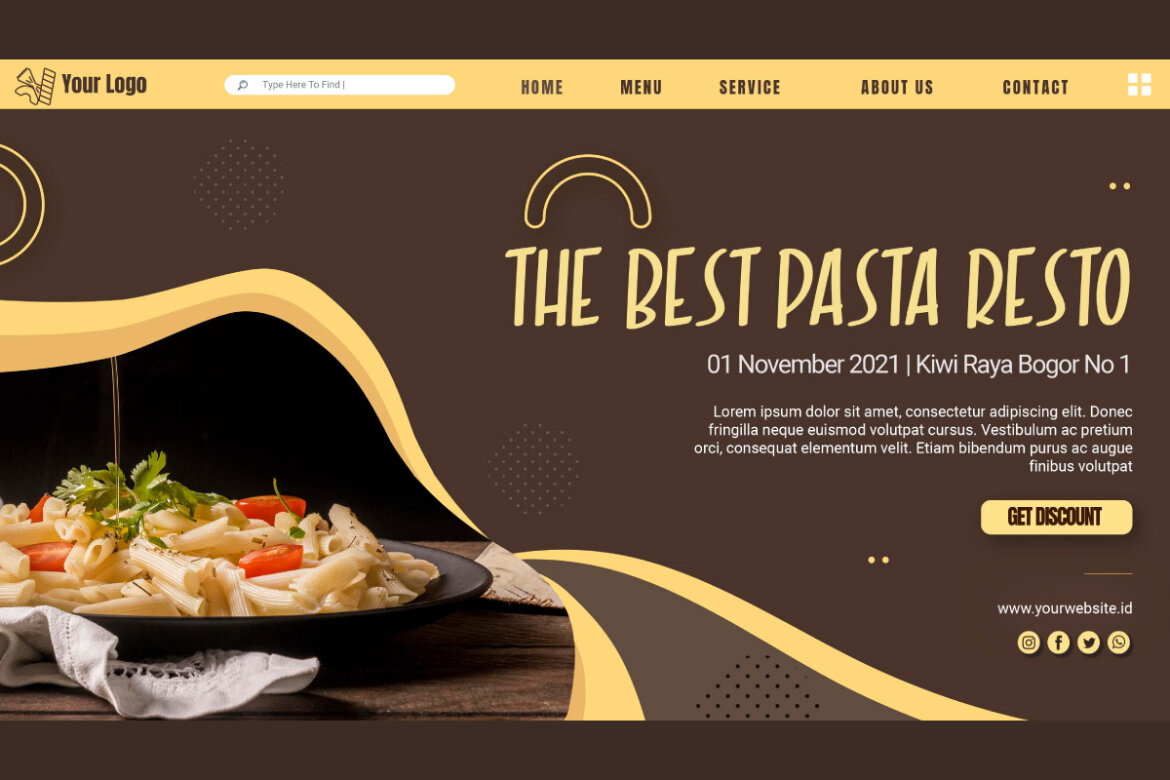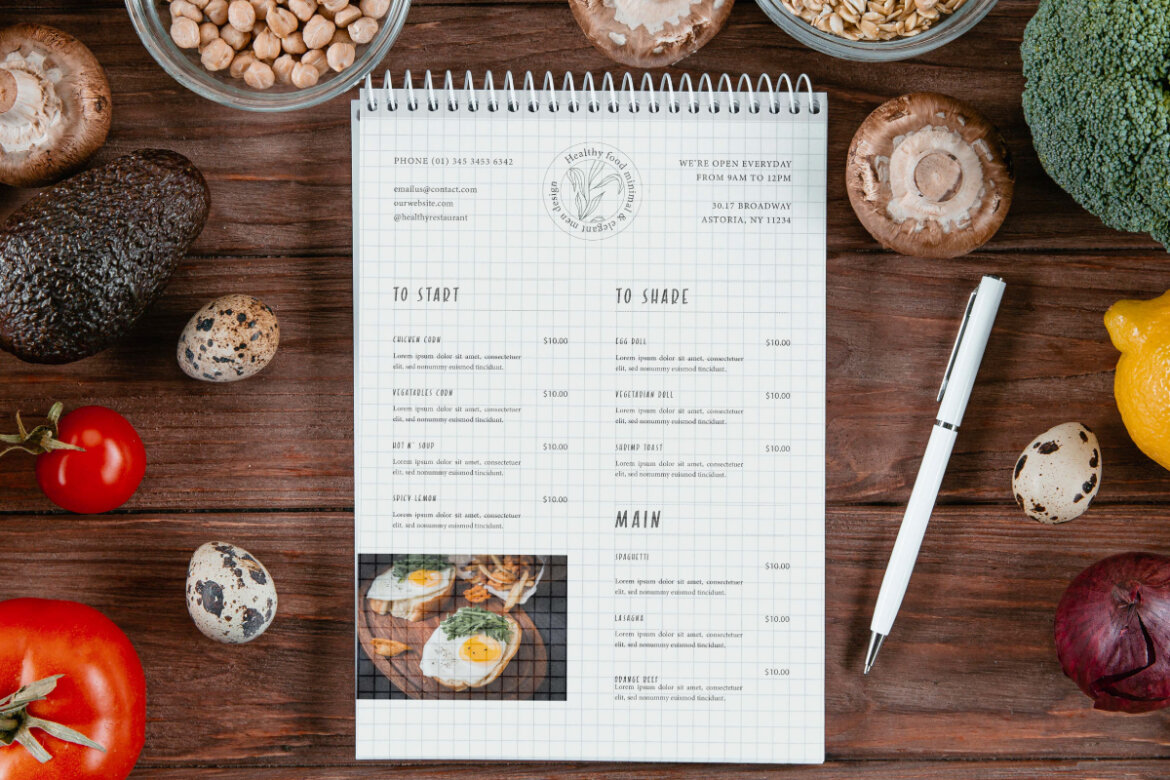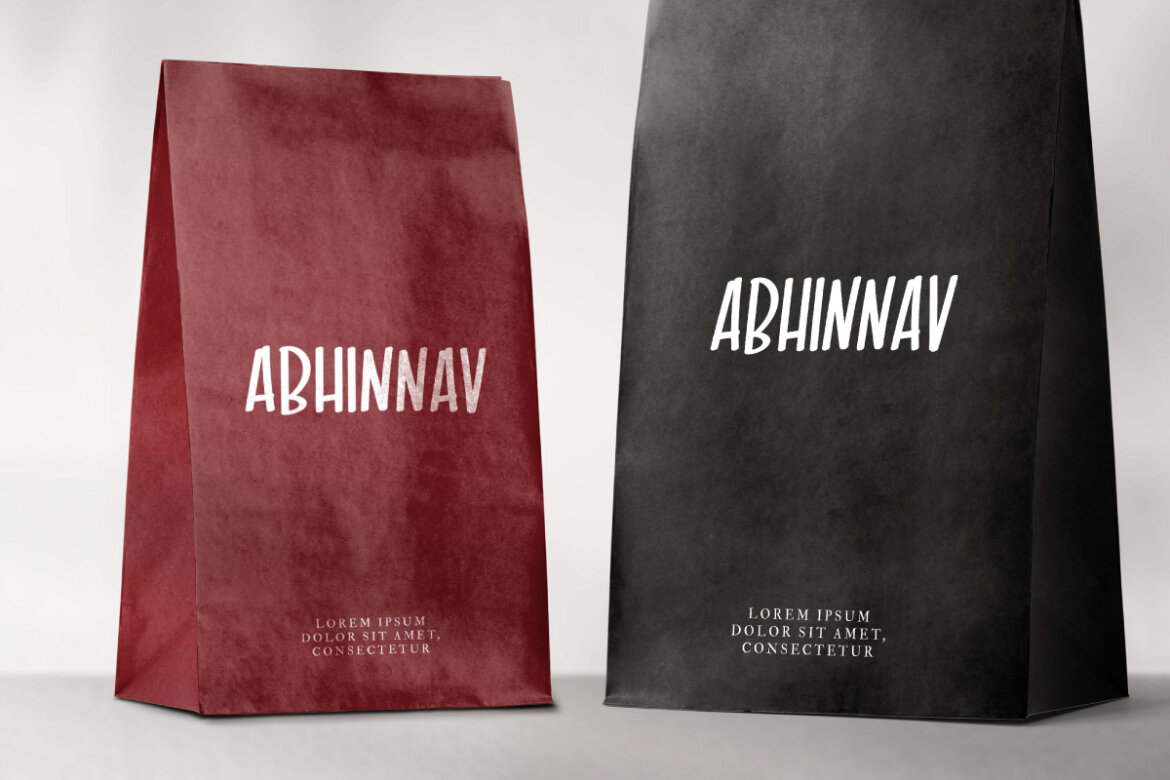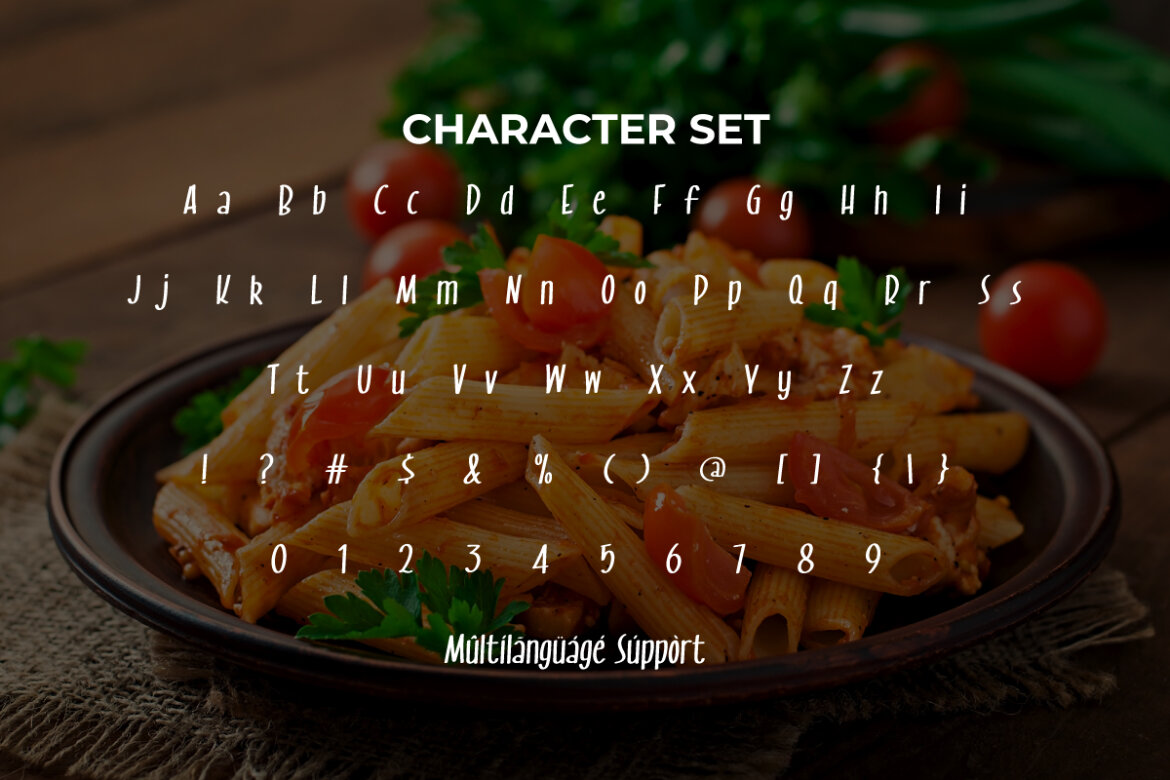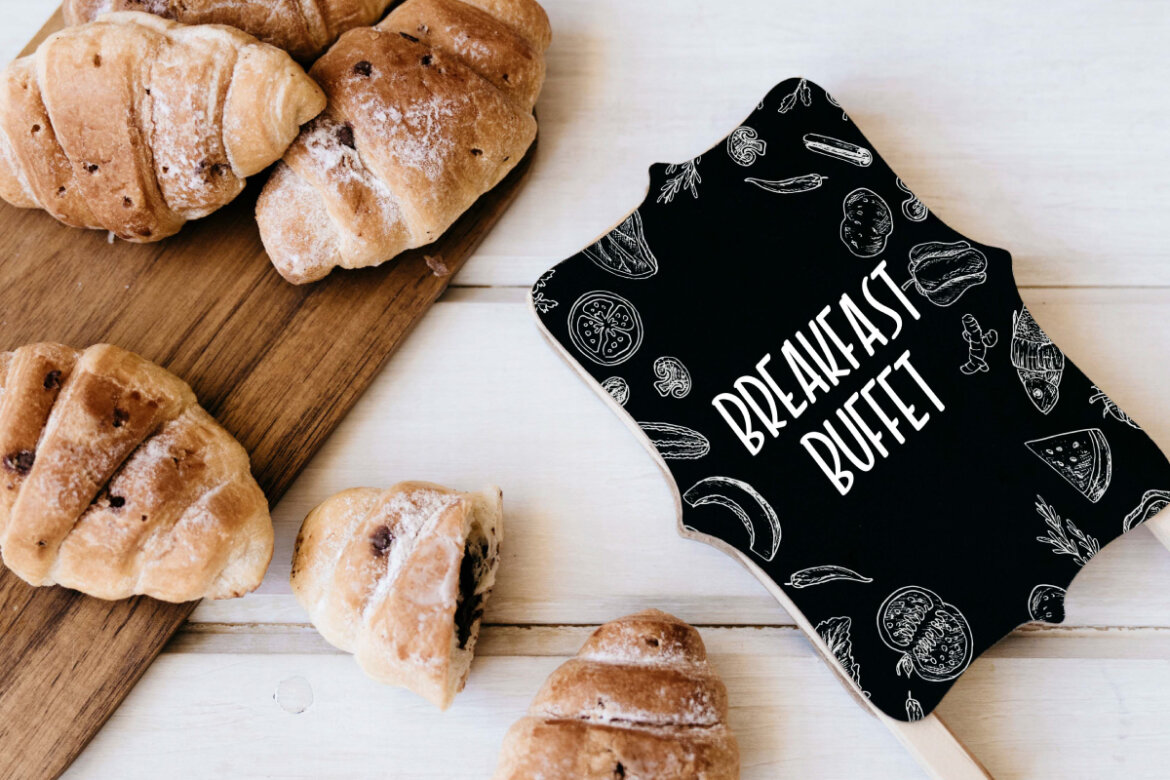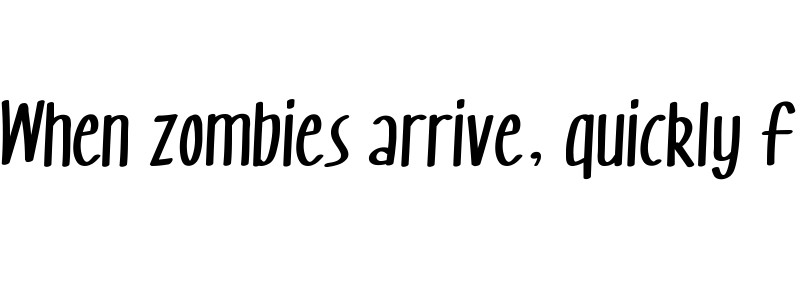
Sauce Macaroni FREE Font
Sauce Macaroni
Sauce Macaroni Font is a simple easy to read playful display font. This font has a heigh and unique style so it is suitable for use with other types of fonts. It will be good to complement any project design, such as brand image, brochure, cover, custom design, flyer, label, marketing material, menu board, poster, screen print, signage, stationery, sticker, website page, and many more!
OTF TTF Woff Help File Sauce Macaroni Font can make each of your designs look stylish, so it can be used by various industries, such as accessories, advertising, bakery and pastry, cafe, content creator, event or festival, fashion, food and beverages, graphic design, handicraft, interior design, printing, publishing, etc.
Sauce Macaroni Font comes with a full set of Uppercase and Lowercase Basic Characters, Number, a large range of Punctuation, and Symbol. It also comes with multilingual character support. Ready to use both on Windows machine or Mac with simple installations. It’s tested to work well in the Adobe Apps (Illustrator, Adobe InDesign, Adobe Photoshop) CorelDraw, and others. PUA Encode Characters means you can access all the characters easily – Fully accessible without additional design software.